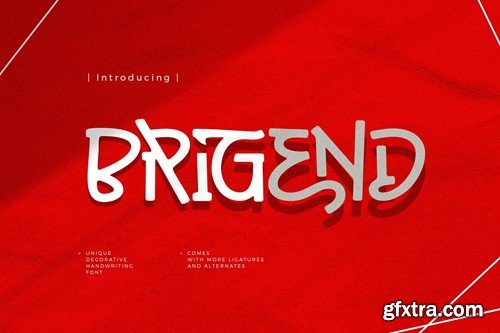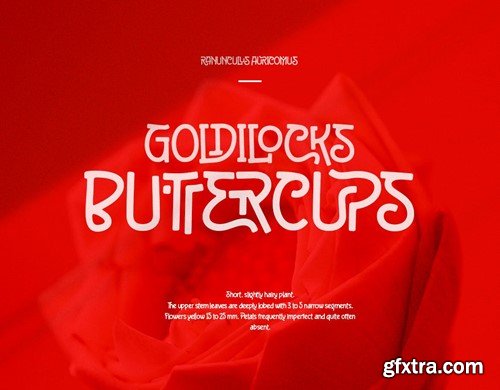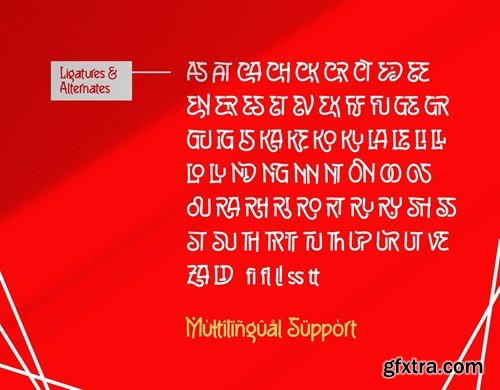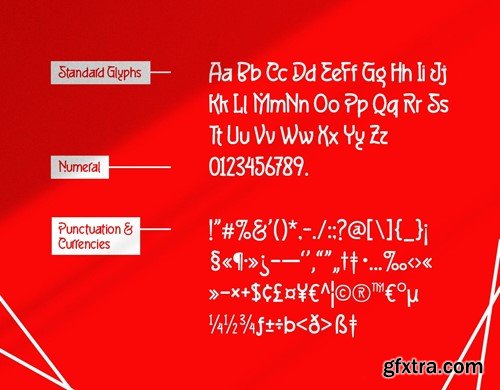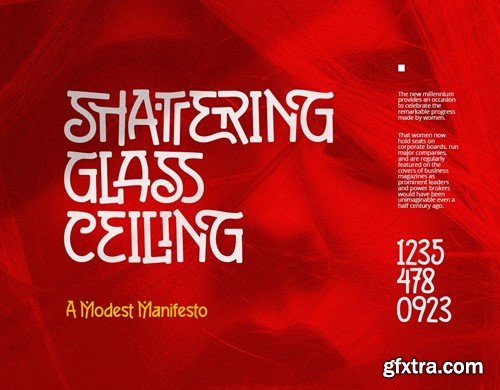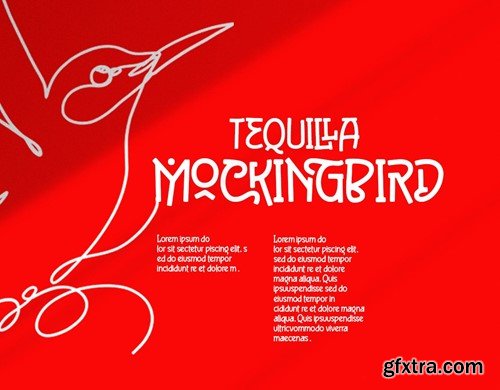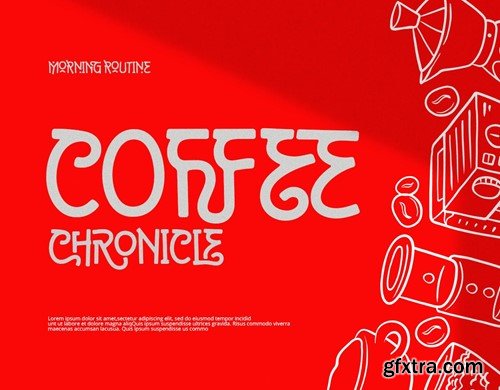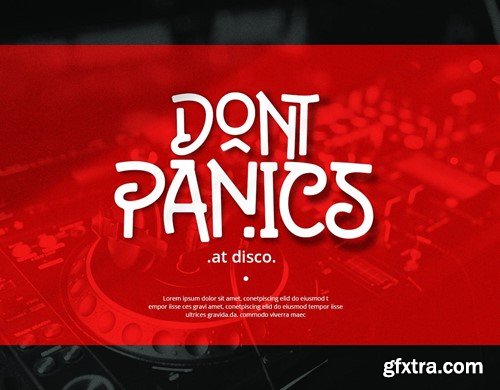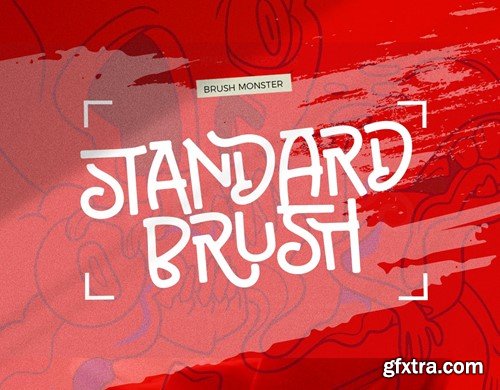
Brigend is a sophisticated monoline handwriting font that exudes elegance and charm. Crafted with meticulous attention to detail, this font offers a seamless blend of modernity and classic handwriting aesthetics. Each stroke is carefully crafted to maintain consistency and fluidity throughout, creating a polished and refined appearance. One of Brigend's standout features is its extensive ligature set, which adds a touch of uniqueness to every word and enhances readability. These ligatures seamlessly connect letters, creating smooth transitions and adding a natural flow to the text. Whether used in headlines, body text, or creative projects, Brigend's ligatures elevate the overall visual appeal and lend a distinctive character to any design. Features: What Inside: Thankyou for picking up this font, hope you enjoy it.